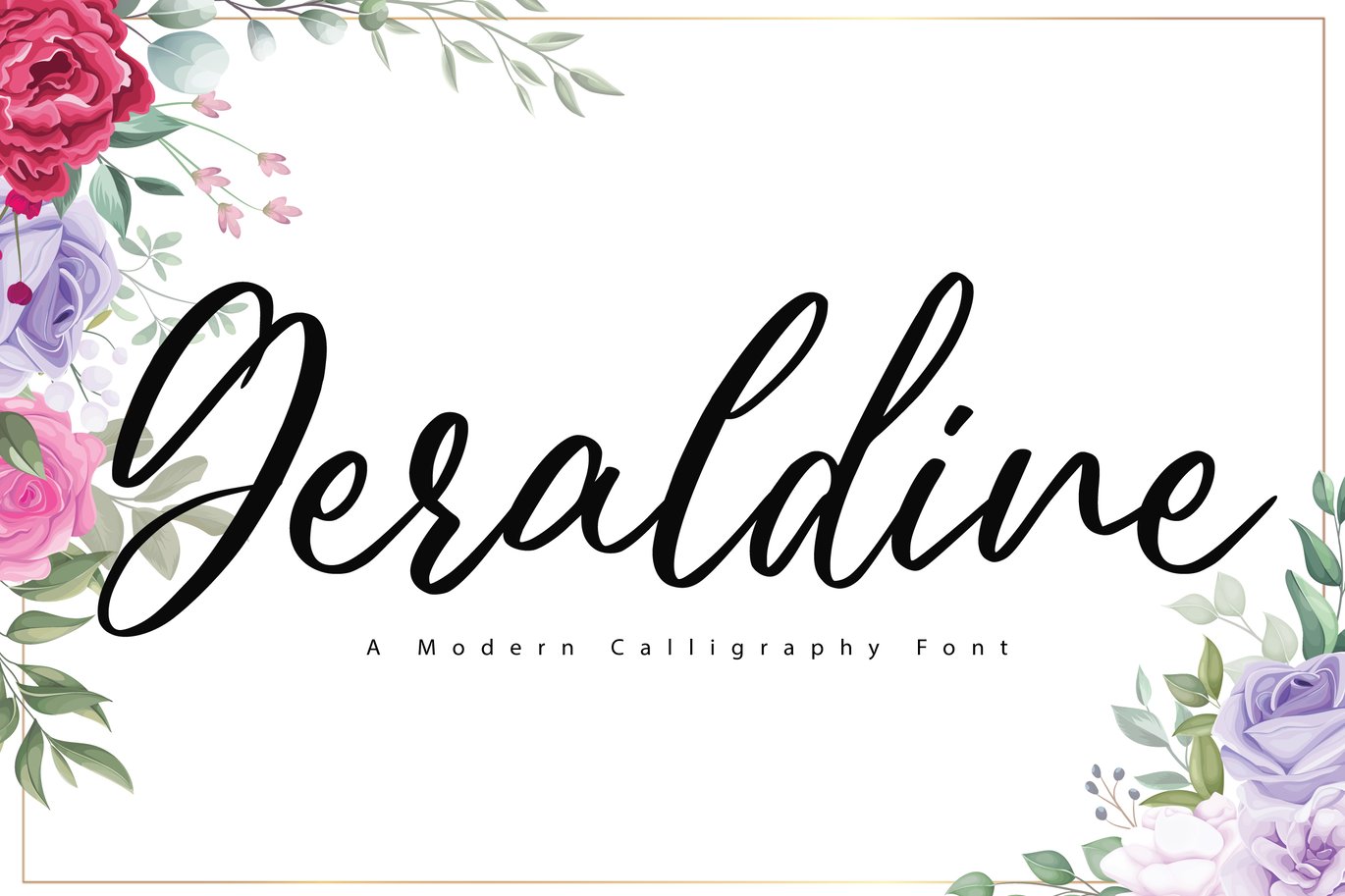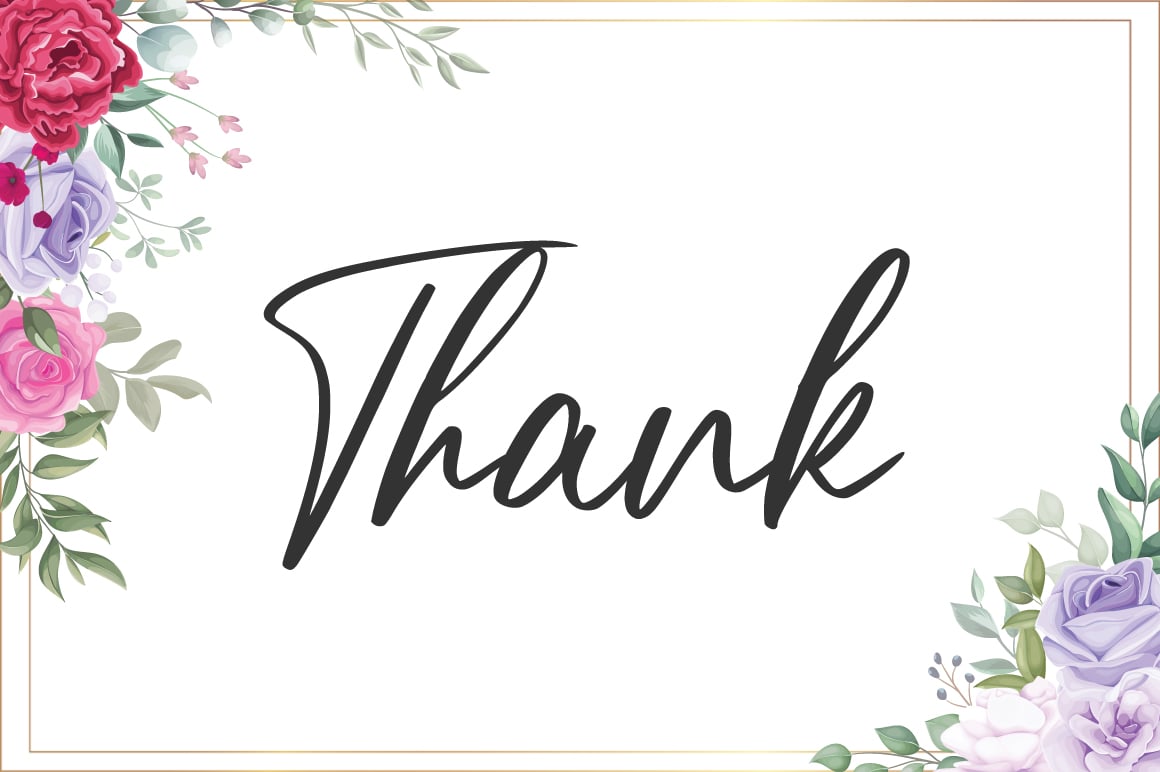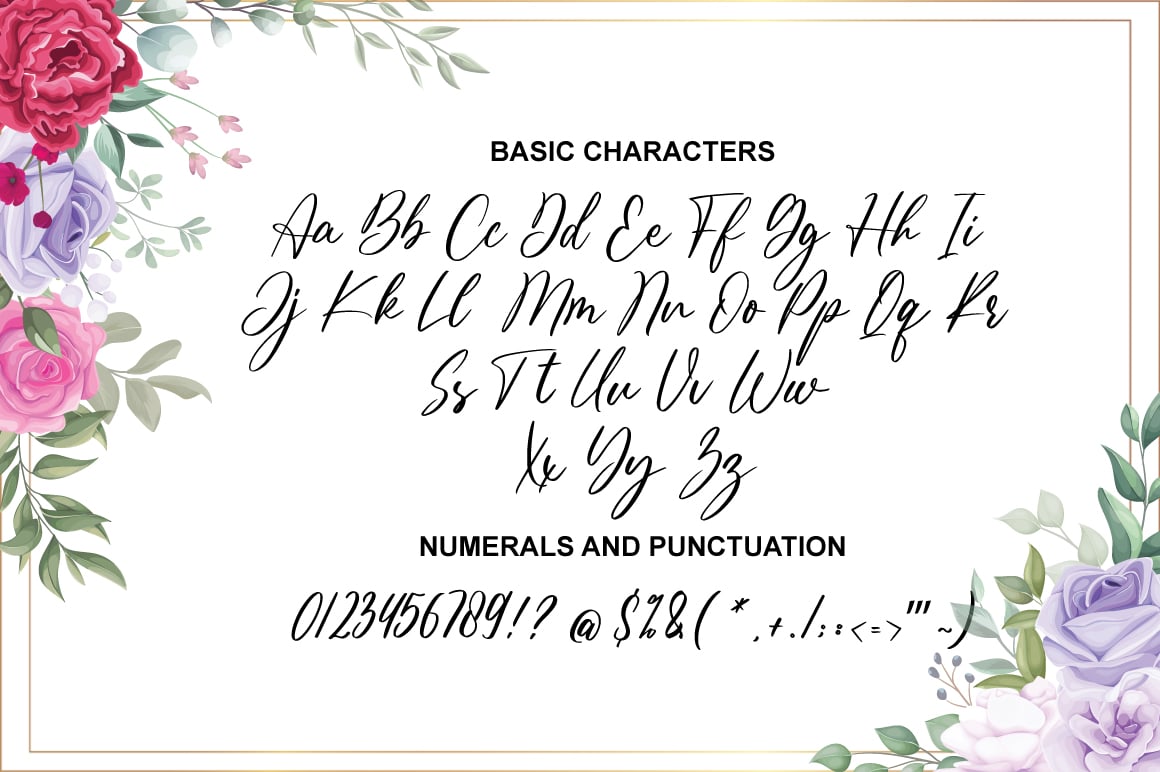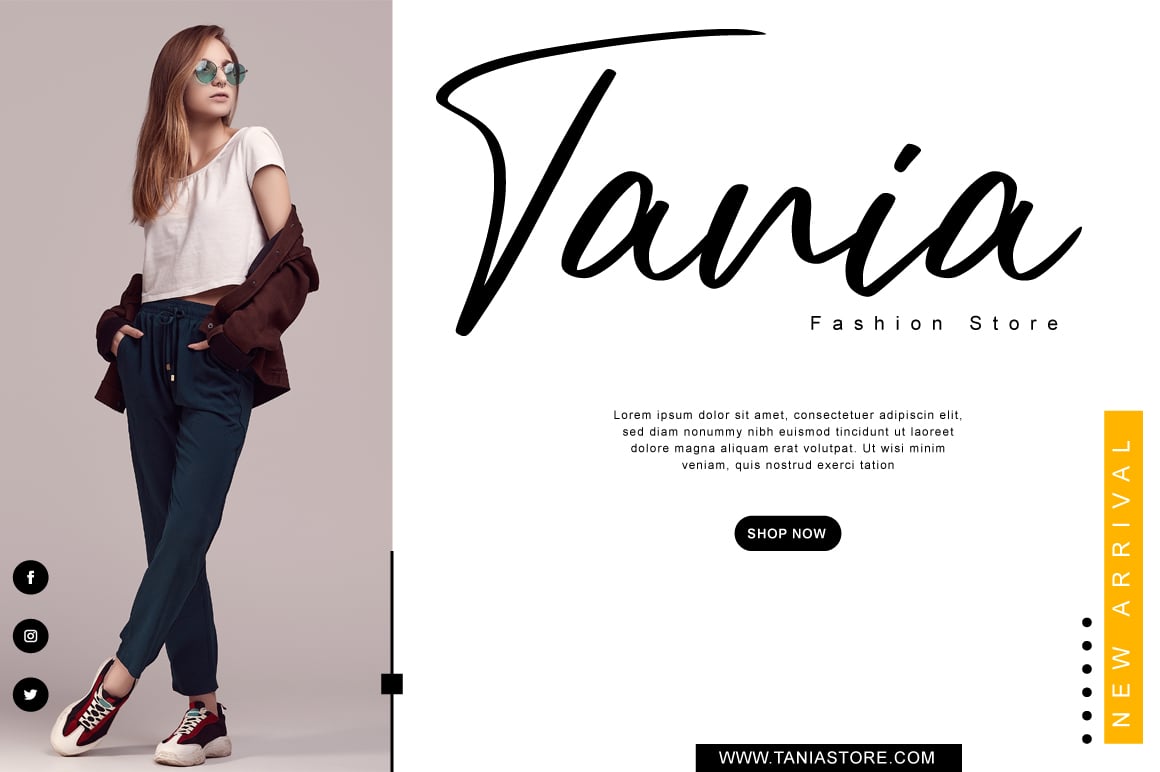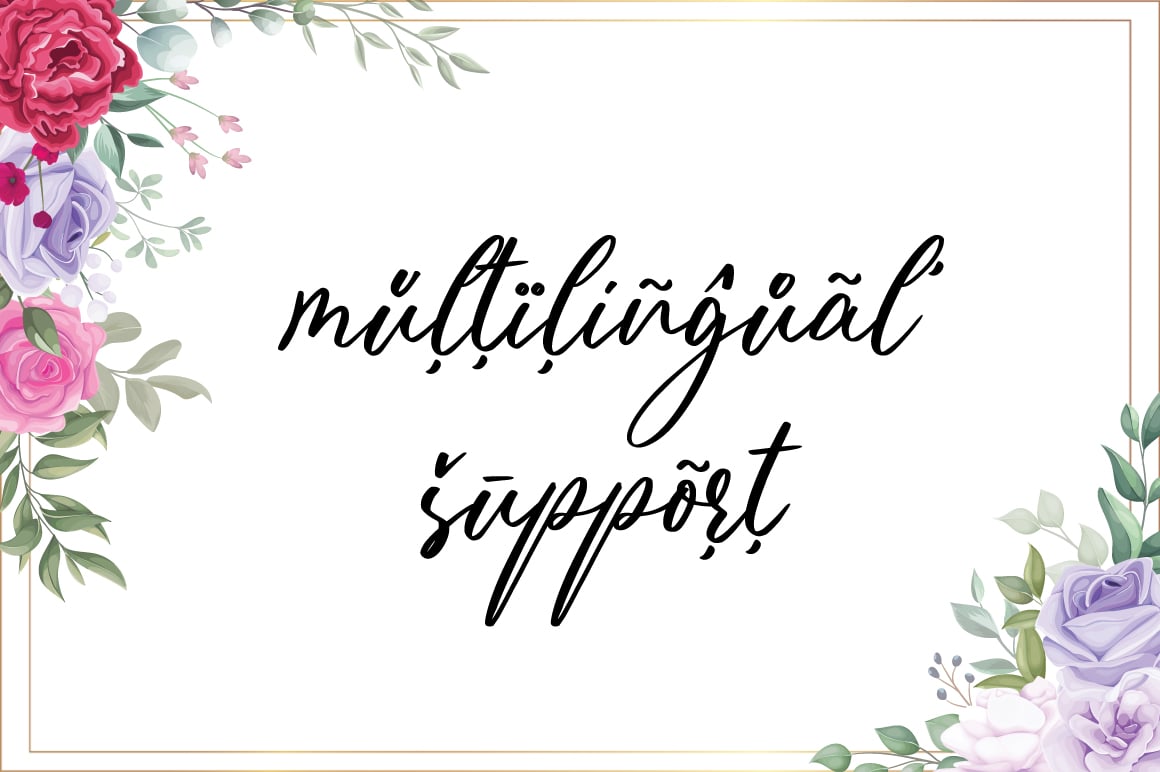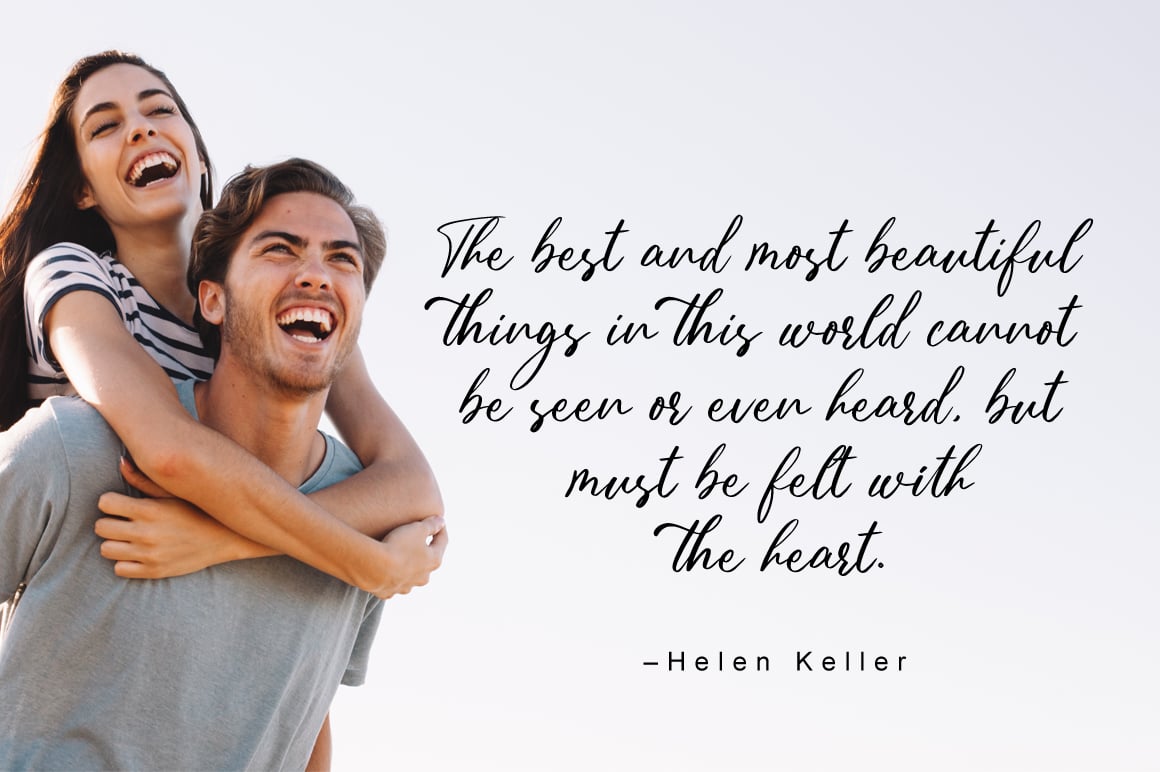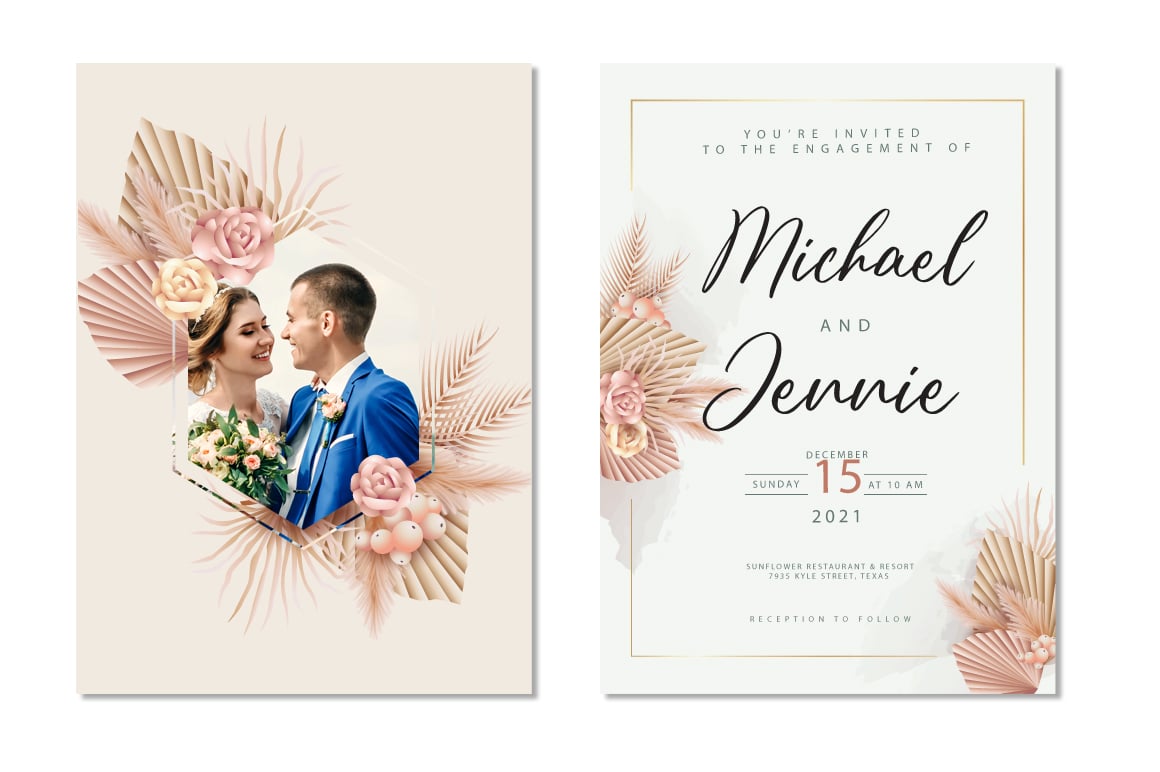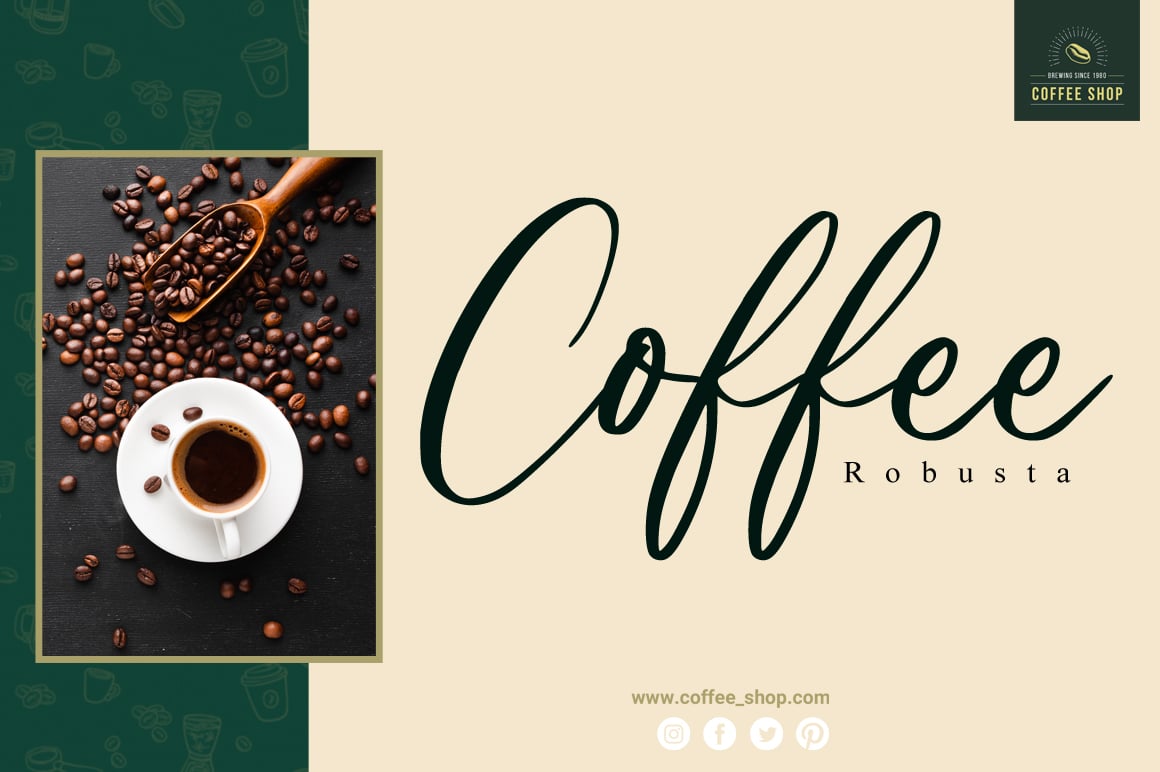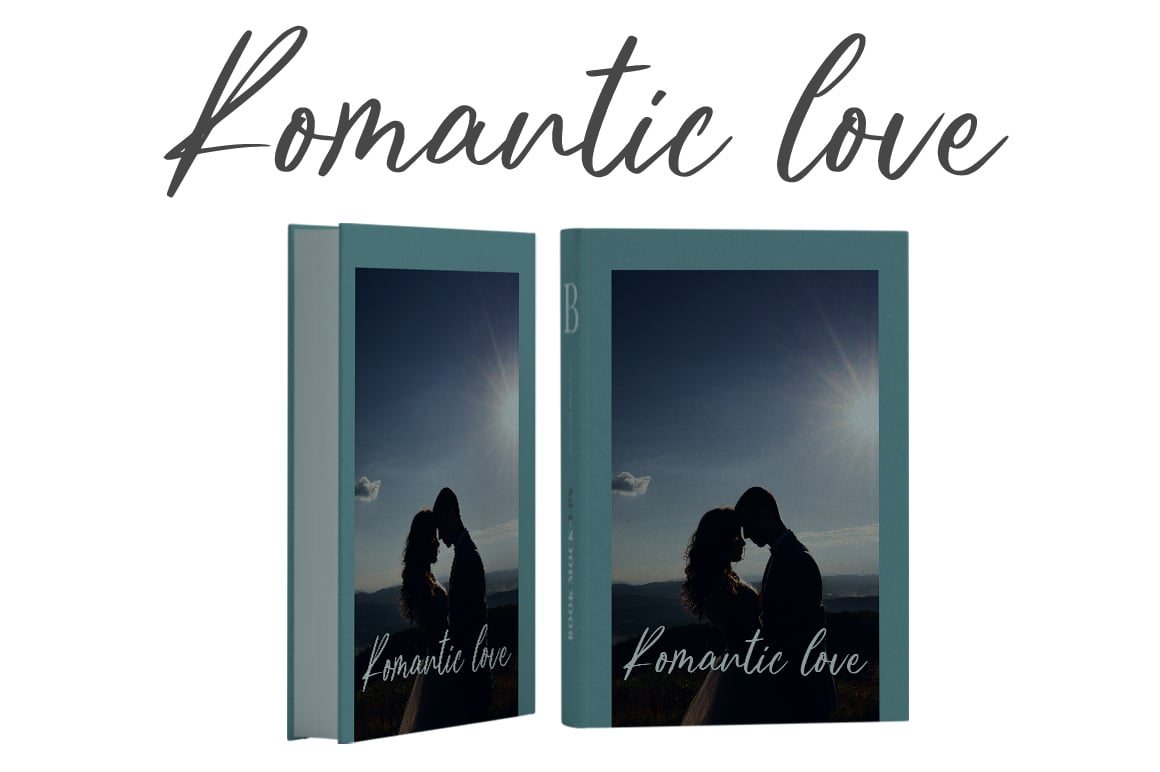
Geraldine – Wedding Font
Geraldine is a beautiful script font, featuring a lovely flow. It has a classy, elegant, and modern look that can be used for logos, branding, invitations, stationary, wedding designs, social media posts and much more!
- Ligatures, Swash, Alternates
- Letters, Numbers, punctuation